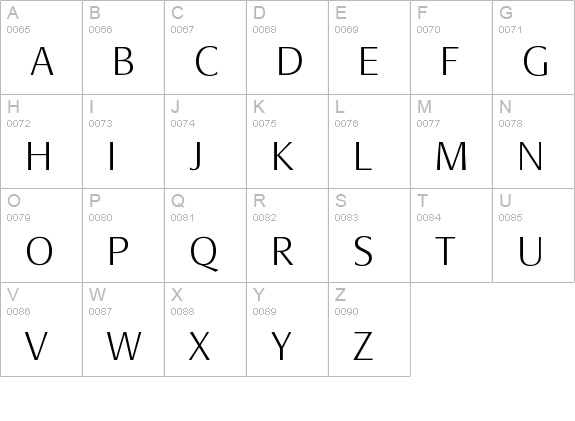
Signata Light is a refined, elegant variant in the Signata typeface family \xE2\x80\x94 well suited to elegant body text, refined sub-headings, and luxury branding.
Signata Light is a stunning and elegant font that will add a touch of sophistication to any design project. Its graceful curves and delicate lines make it perfect for everything from wedding invitations to branding materials. This font is not only visually appealing, but it also offers great versatility. Whether you're looking to create a romantic and dreamy atmosphere or a modern and minimalist look, Signata Light has got you covered. Its thin strokes and generous spacing give it a clean and contemporary feel that will make your designs stand out. One of the best things about Signata Light is that it is free! That's right, you can freely download this font at FontsMarket.com. This means that you can use it for personal and commercial projects without any restrictions. Whether you're a professional designer or an amateur enthusiast, Signata Light is a fantastic choice that won't break the bank. So why wait? Take advantage of this amazing opportunity and enhance your designs with the beauty and elegance of Signata Light. Download it today from FontsMarket.com and let your creativity shine!